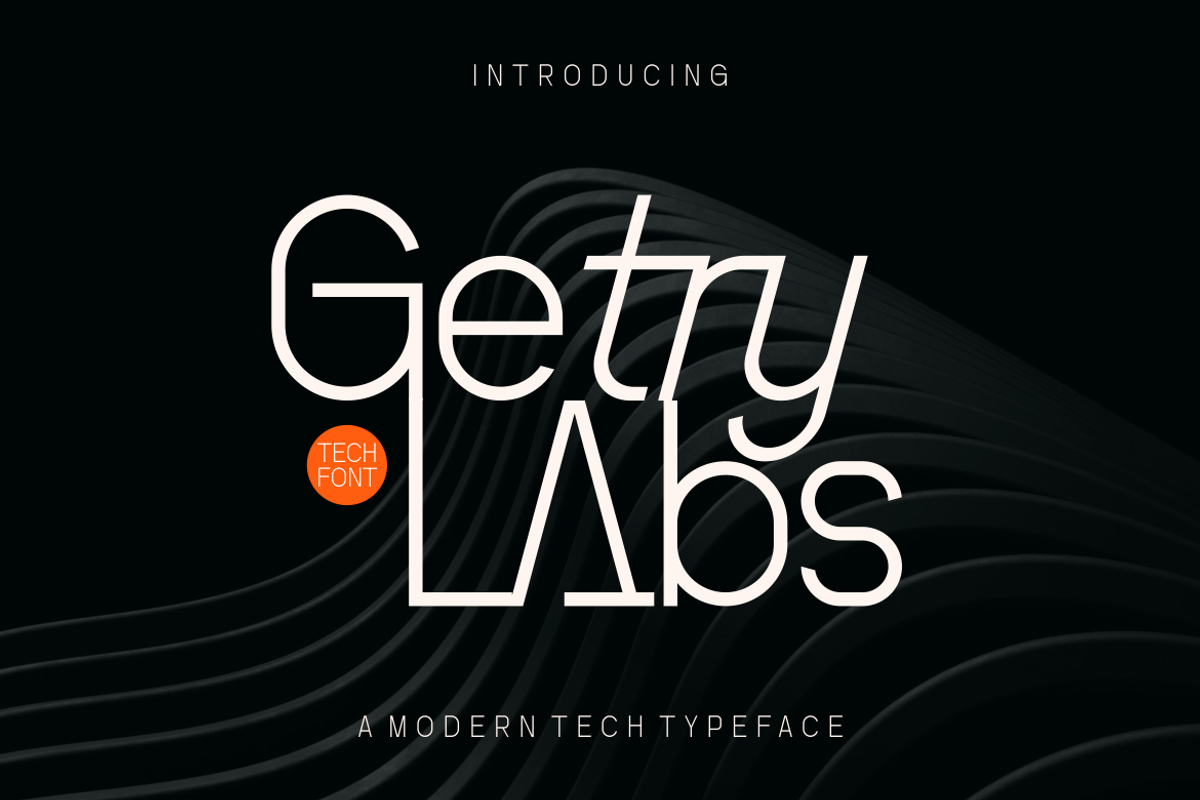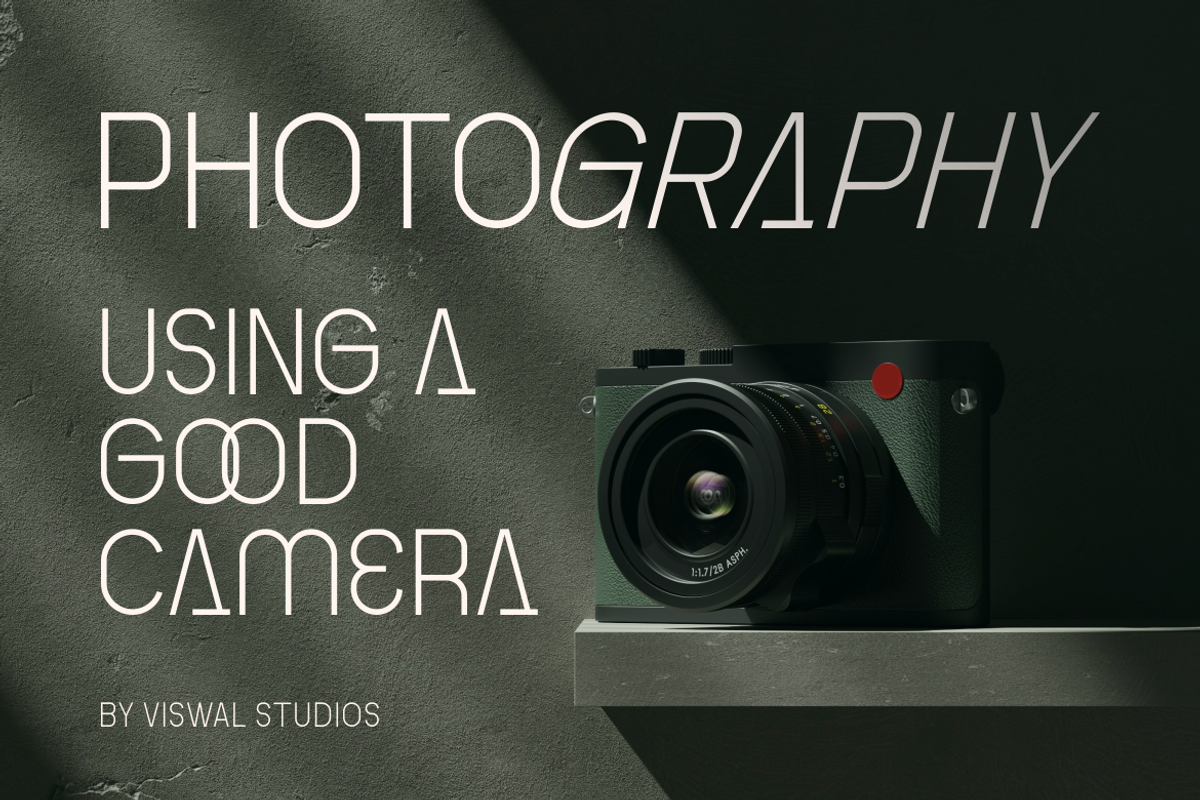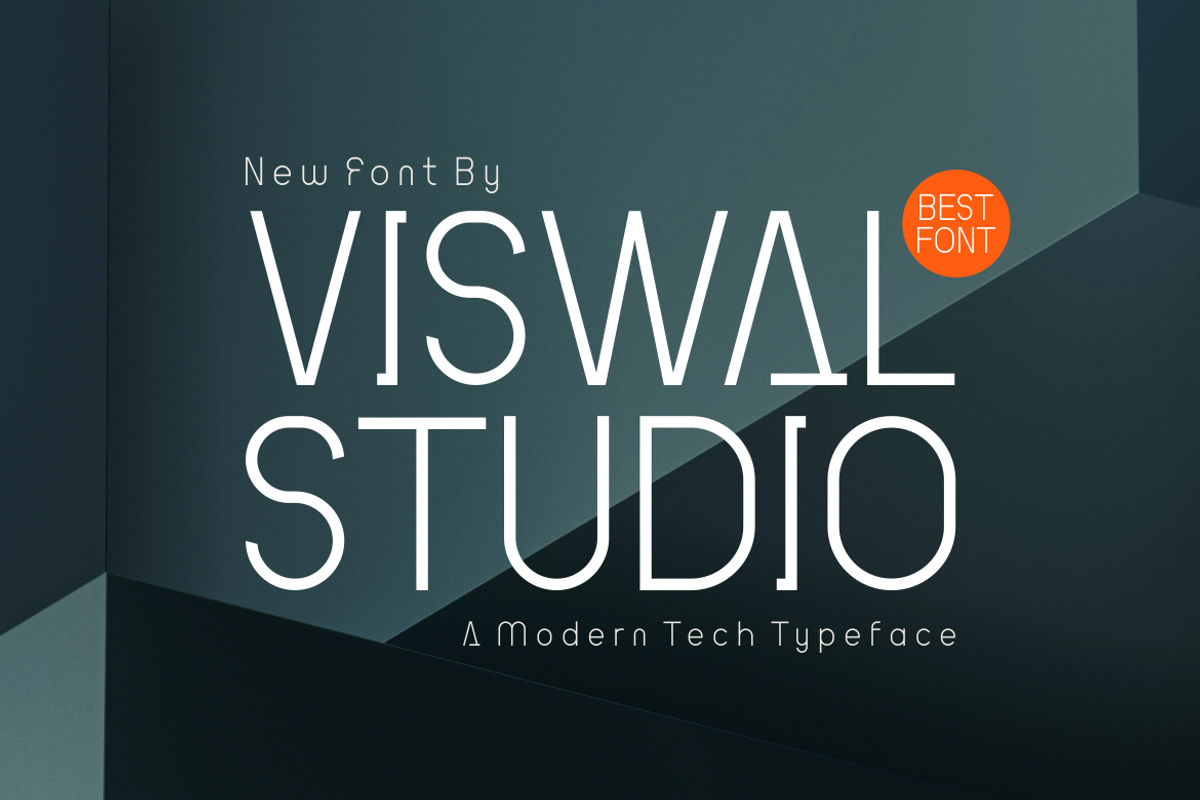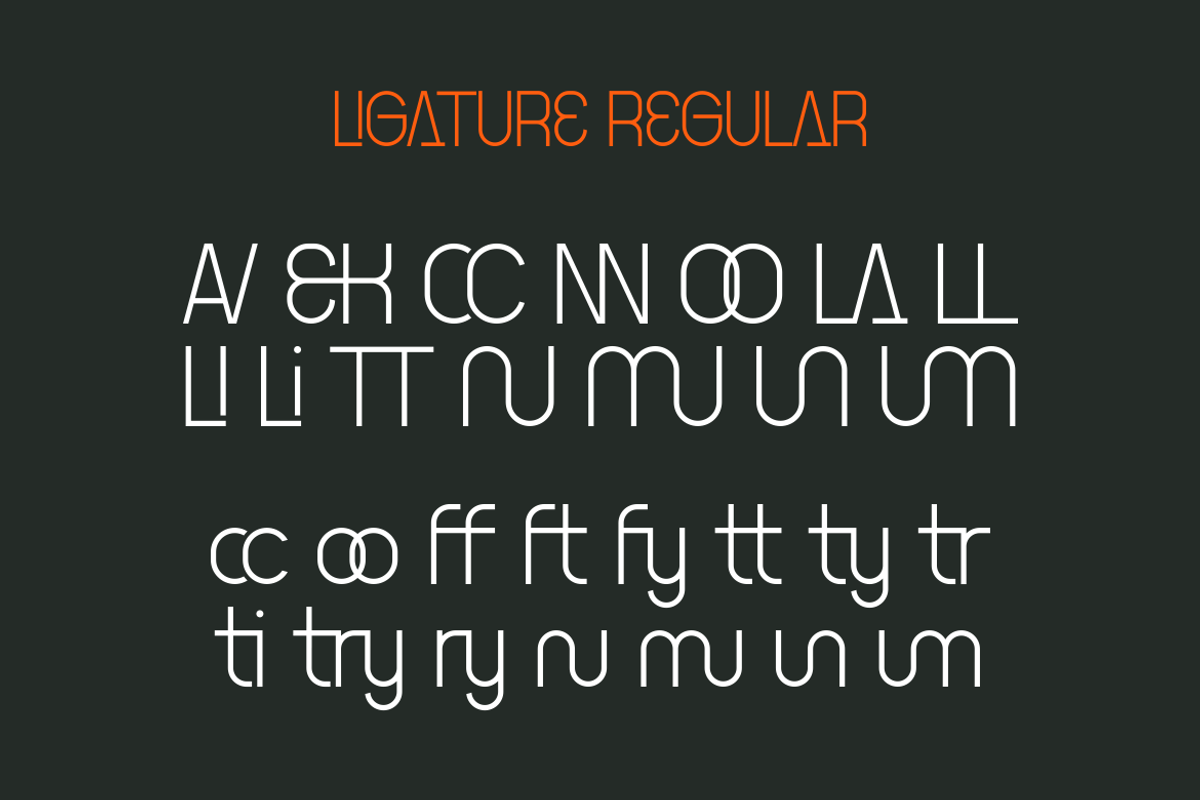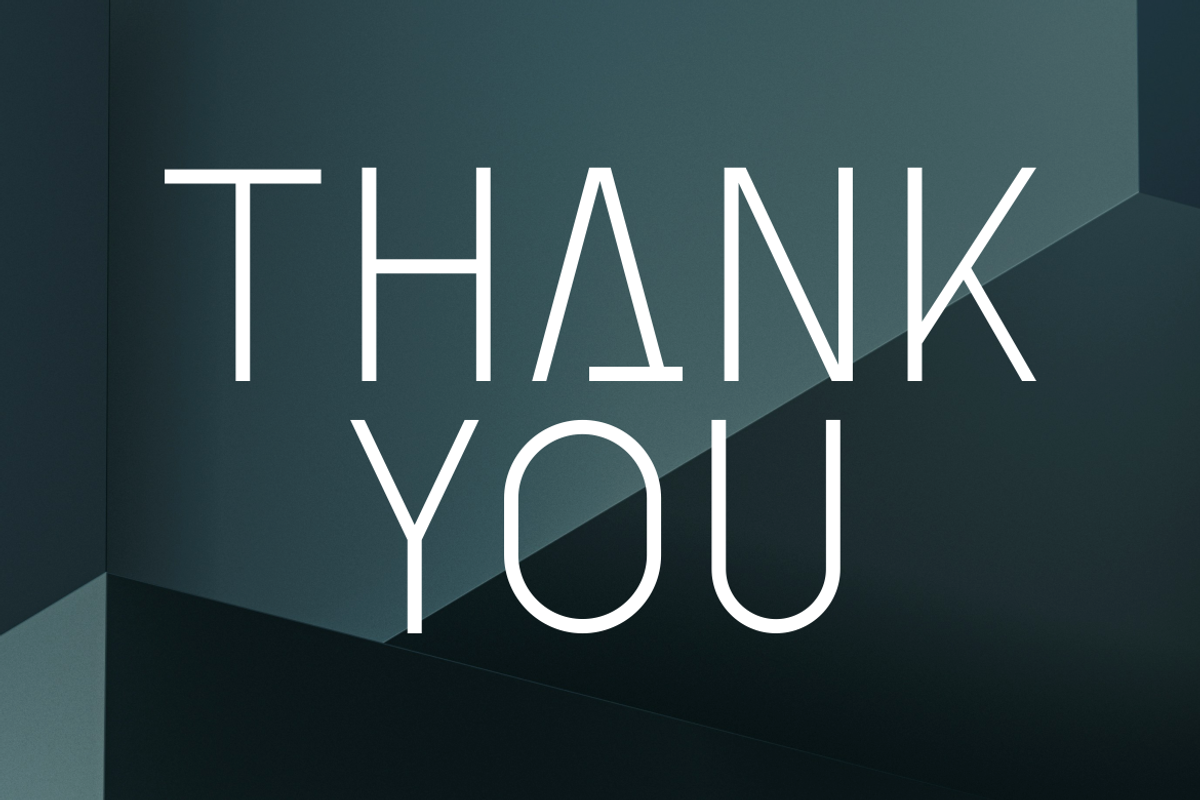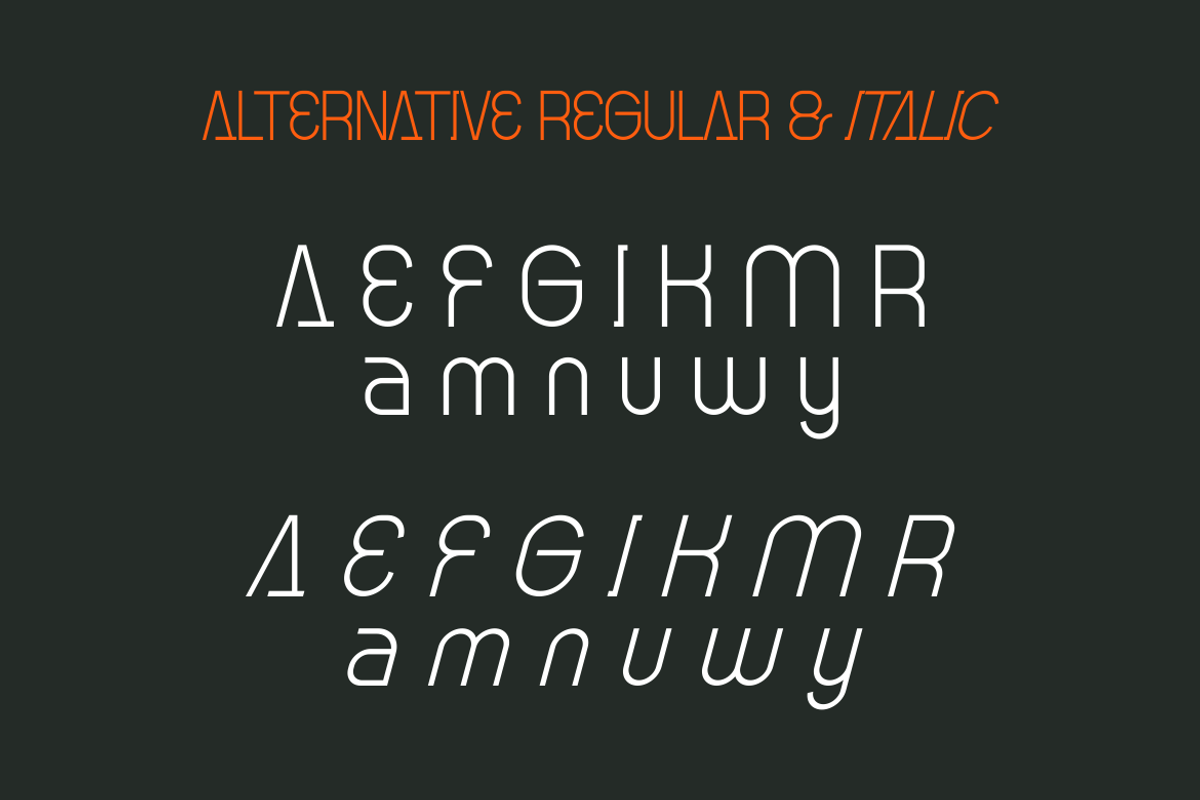
Getry LAbs - Modern Font
Presenting Getry LAbs Is A Modern Font.
Can Make It Easier To Convey The Message In Your Design. Font Is Suitable For Logo, Labels, Badge, Branding, Magazine, Poster, Title, Gigs, Covers And Etc. Our Fonts Have Uppercase & Lowercase, Numeral & Punctuation, And Opentype Features. For Amazing Designs You Can Mix With Other Fonts As A Complement.